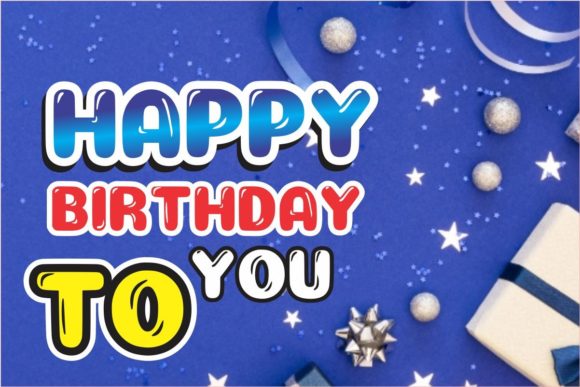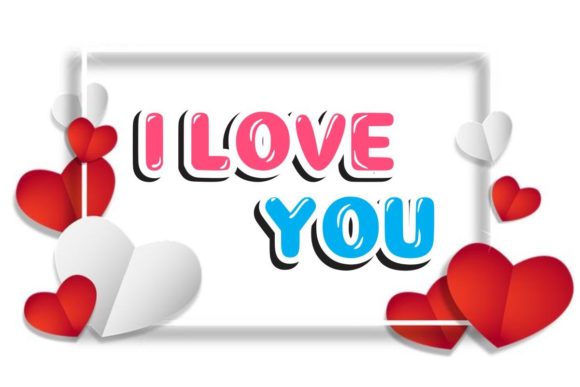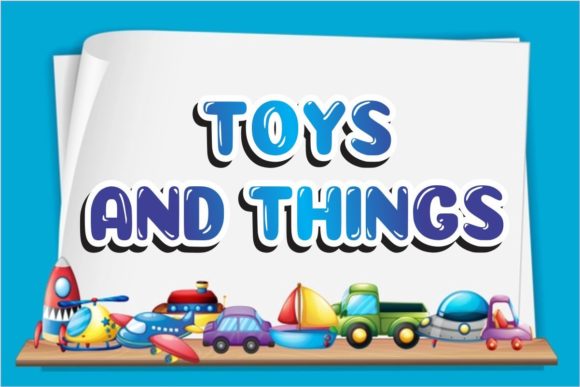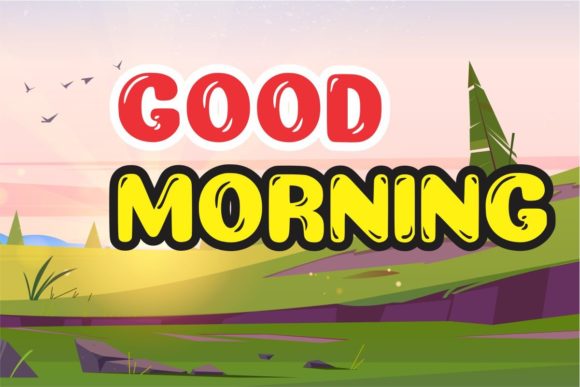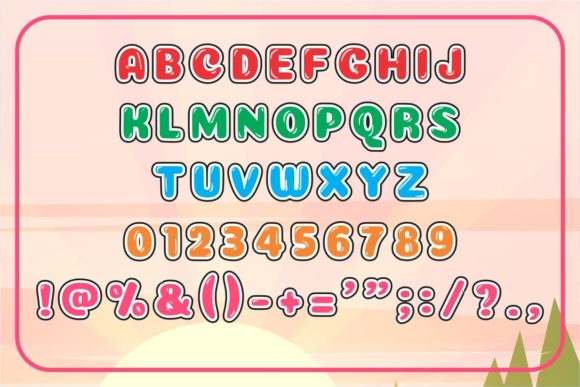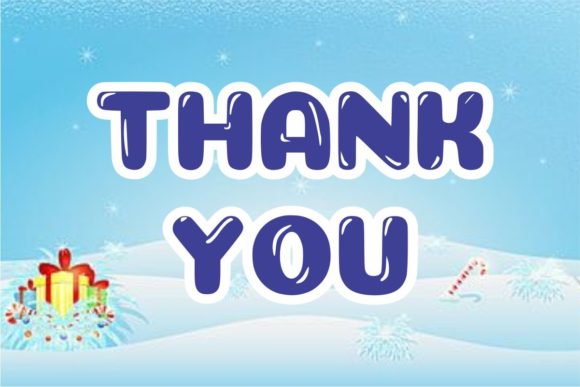
Introduction to Gallant Bold Font
Gallant Bold is a cheerful, bold, and friendly display font.
It embodies fun and authenticity and is the perfect choice for kids’ activities, birthday cards, invitations, banners, or other creative ideas .
Key Features of Gallant Bold Font